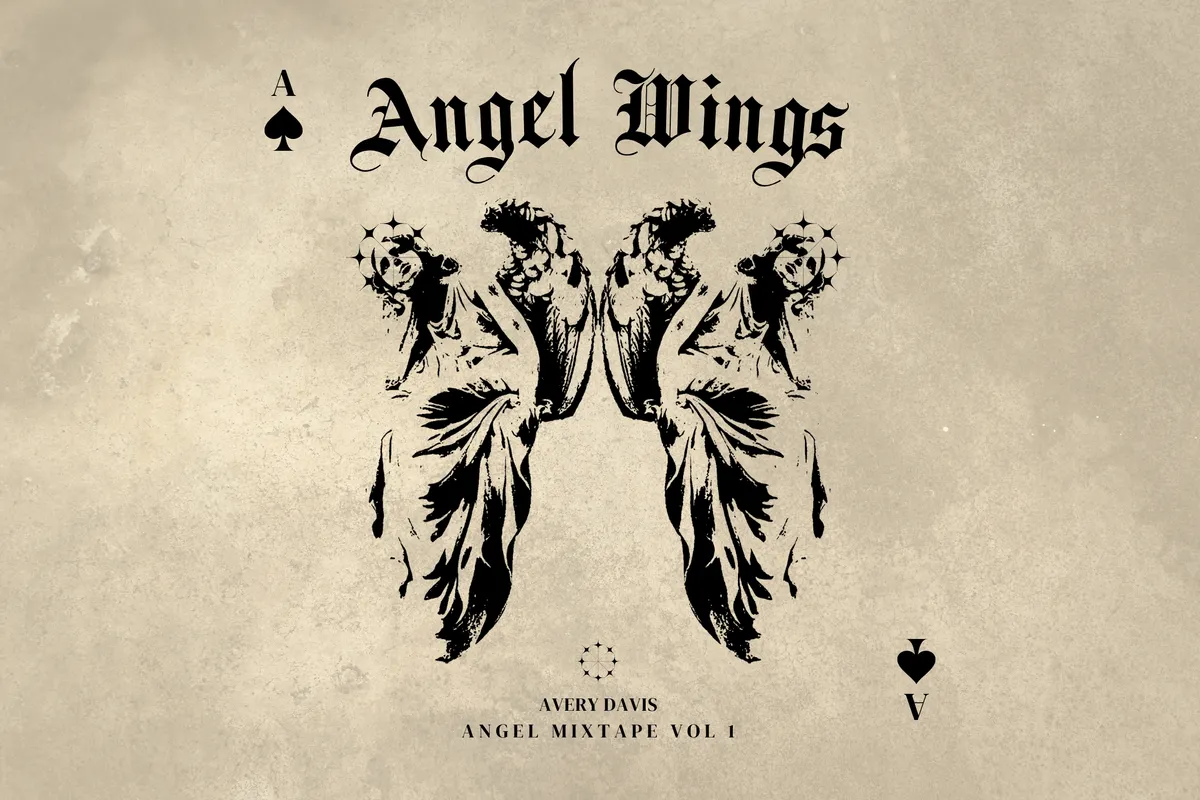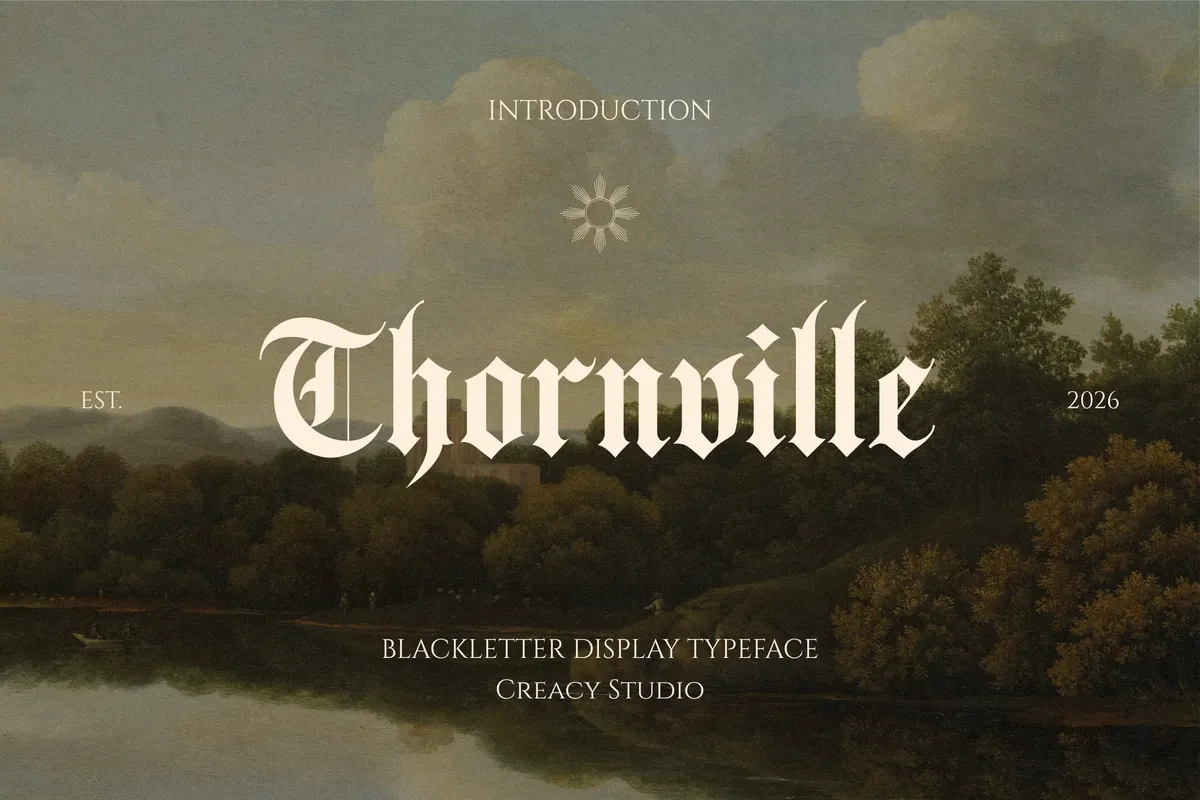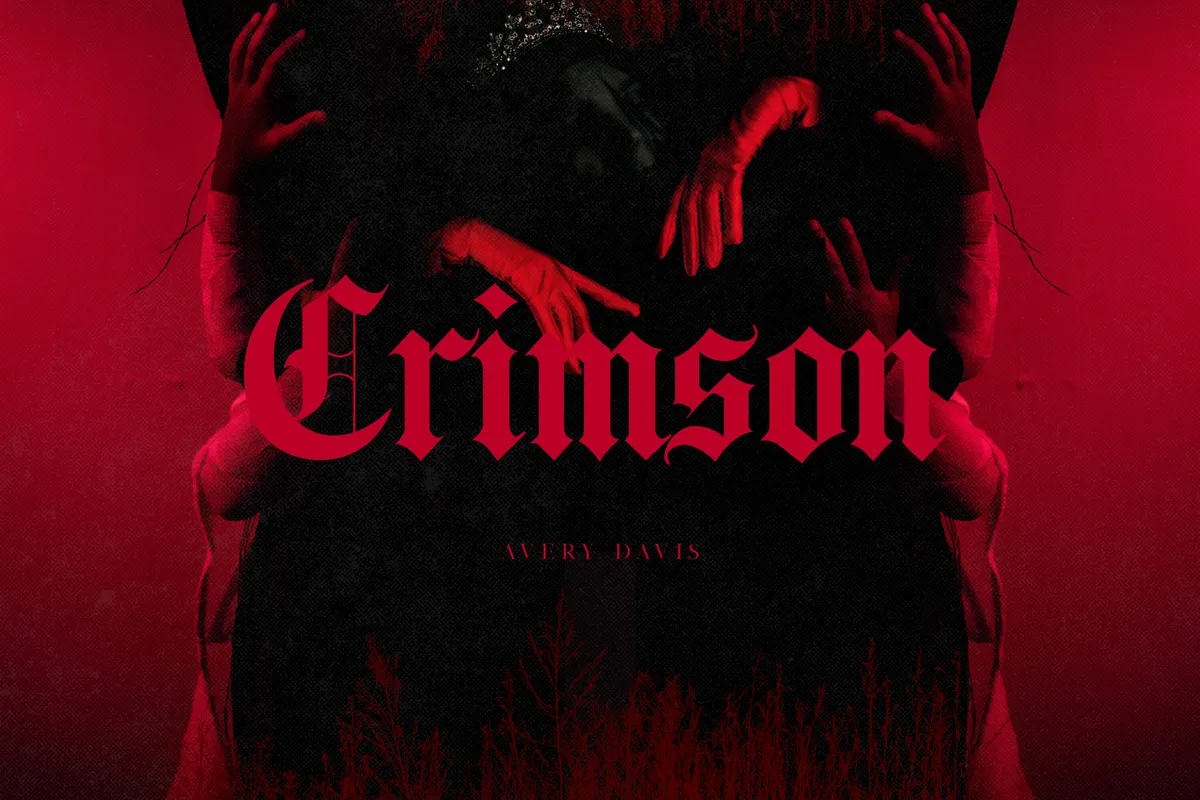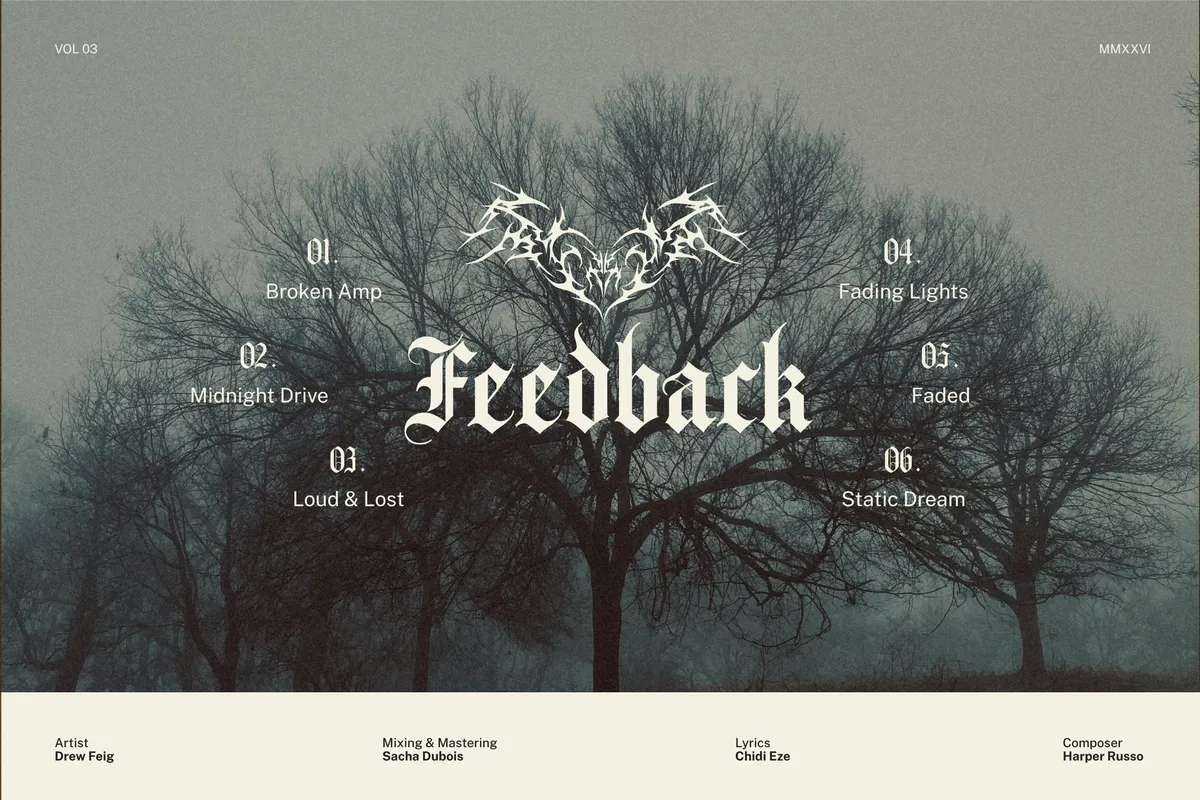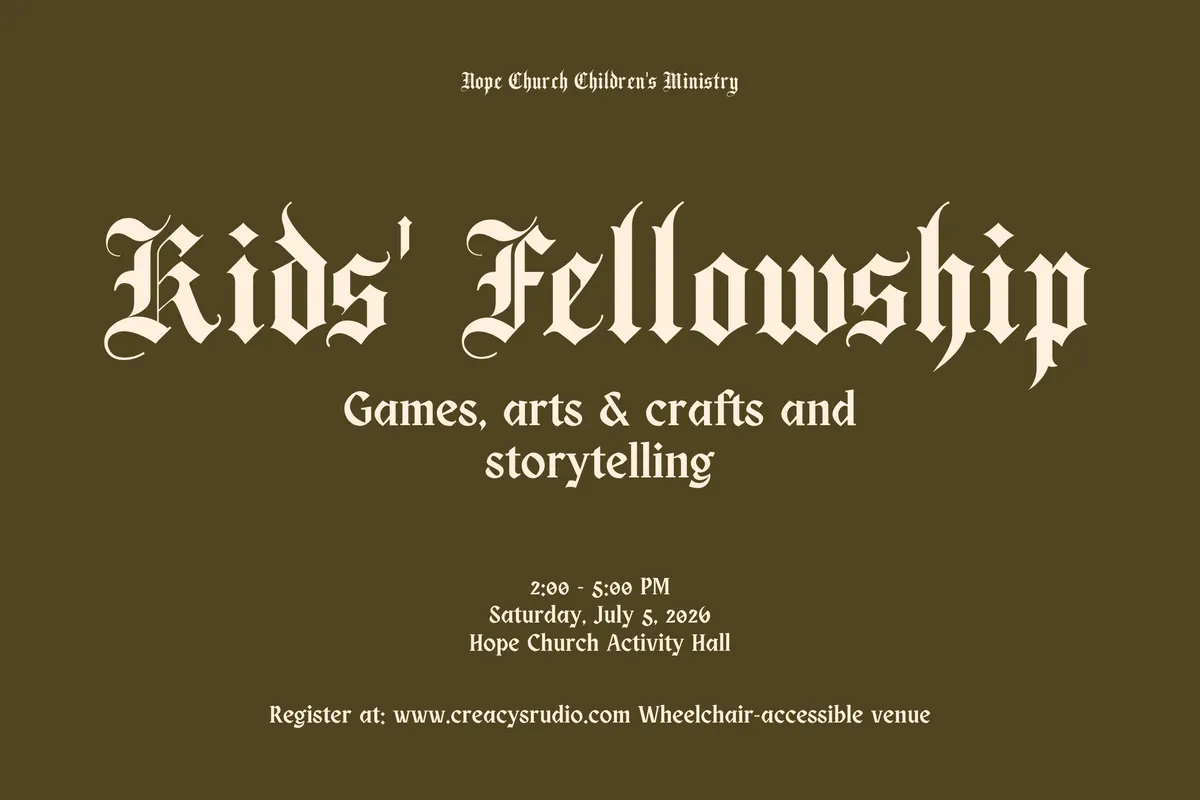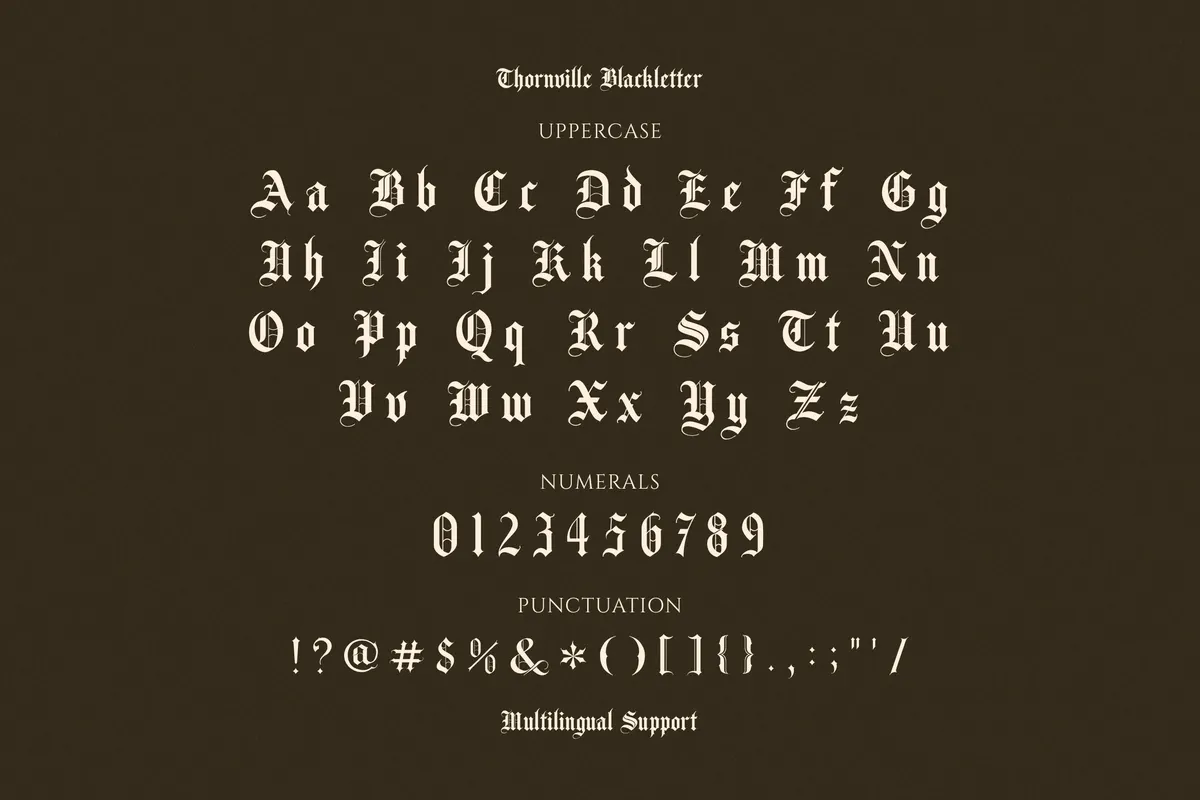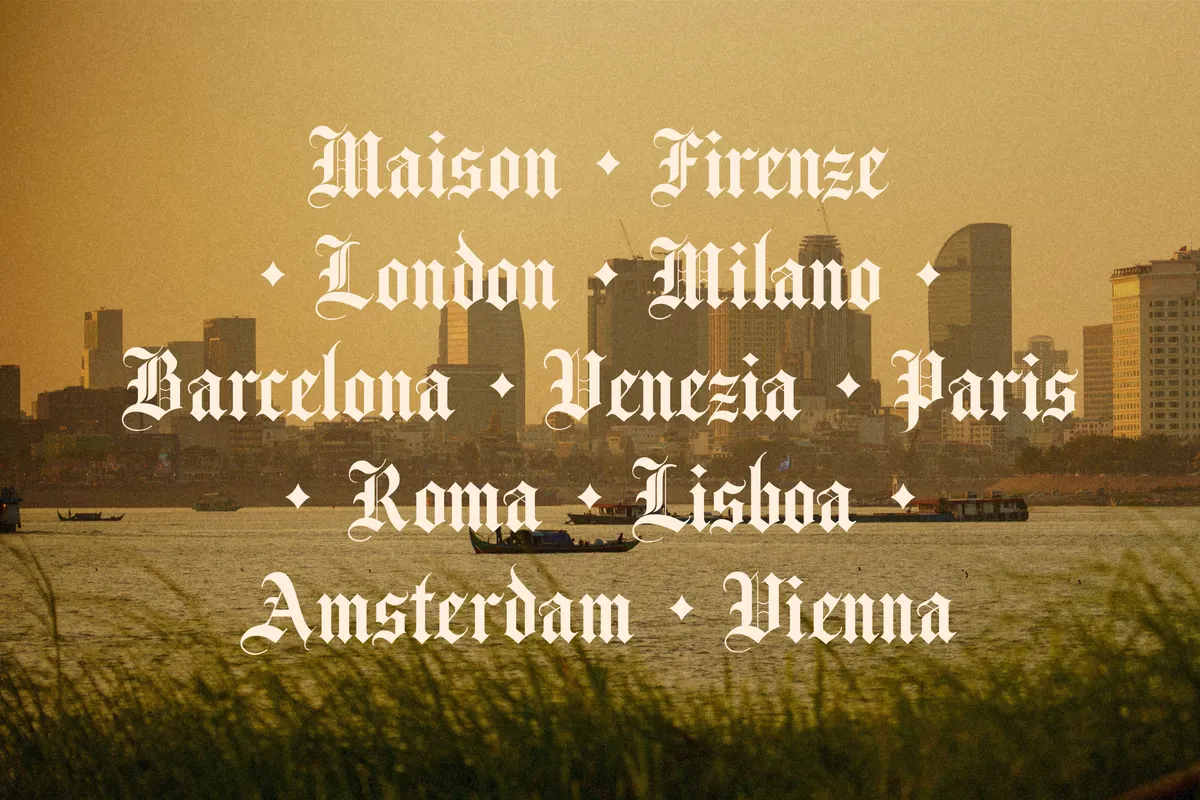
Thornville - Ornamental Blackletter Font
Thornville Blackletter
Thornville builds ornamental blackletter capitals with sharp angular strokes and decorative flourishes, closer to a medieval manuscript than a clean gothic revival. Uppercase and lowercase are drawn as two distinct alphabets rather than a shared shape scaled down, so the display face keeps real Gothic contrast between cases.
Use it for logos, branding, posters, album and book covers, apparel, packaging, invitations, and tattoo-inspired artwork.